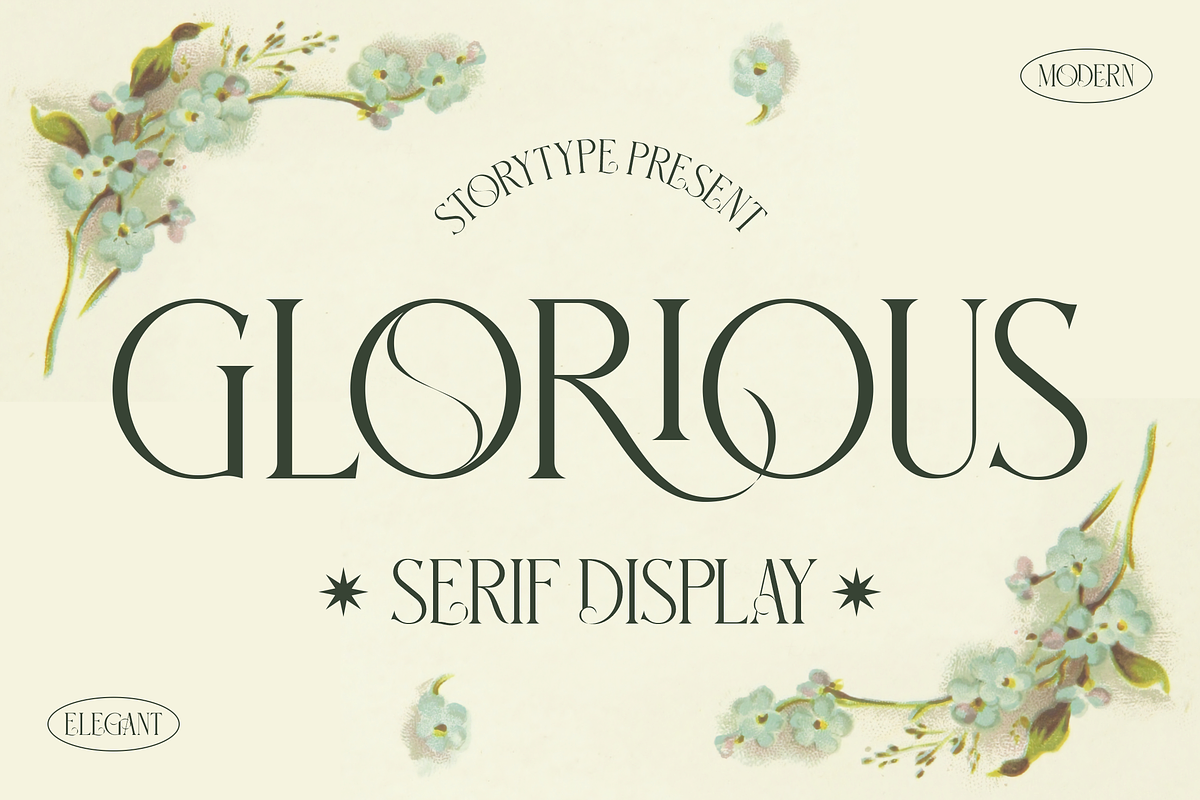
Glorious Serif Display Font Free Download is a sophisticated and elegant typeface that combines traditional serif characteristics with a modern flair. Featuring high contrast strokes and unique, decorative details, this font is perfect for luxury branding, editorial headlines, high-end product packaging, and vintage-style designs that require an impactful and refined presence.
Glorious Serif Display Font Free Download brings grandeur and style to any design. Whether you're creating a premium logo, designing a classy magazine cover, or building elegant advertising materials, this font adds an air of timeless beauty and class. Download it today and elevate your designs with the glorious charm of this serif display font!